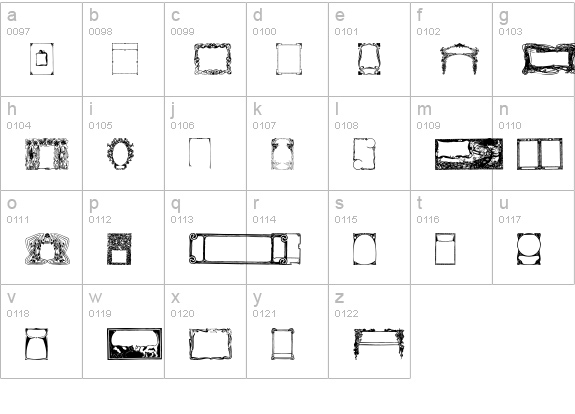
Art Nouveau Frames and Borders Font Details
Introducing the exquisite Art Nouveau Frames and Borders font, a stunning collection of ornate and elegant design elements that will add a touch of timeless beauty to your projects. This unique font features intricate patterns and delicate details inspired by the Art Nouveau movement, known for its flowing lines and natural forms. Perfect for adding a touch of sophistication to invitations, posters, and other creative projects, the Art Nouveau Frames and Borders font is a must-have for anyone looking to elevate their designs. Whether you're working on a vintage-inspired project or simply want to add a touch of elegance to your work, this font is sure to impress. Best of all, this font is available for free download at FontsMarket.com, making it accessible to all designers looking to enhance their projects with a touch of Art Nouveau style. Don't miss out on this opportunity to elevate your designs with the exquisite Art Nouveau Frames and Borders font!